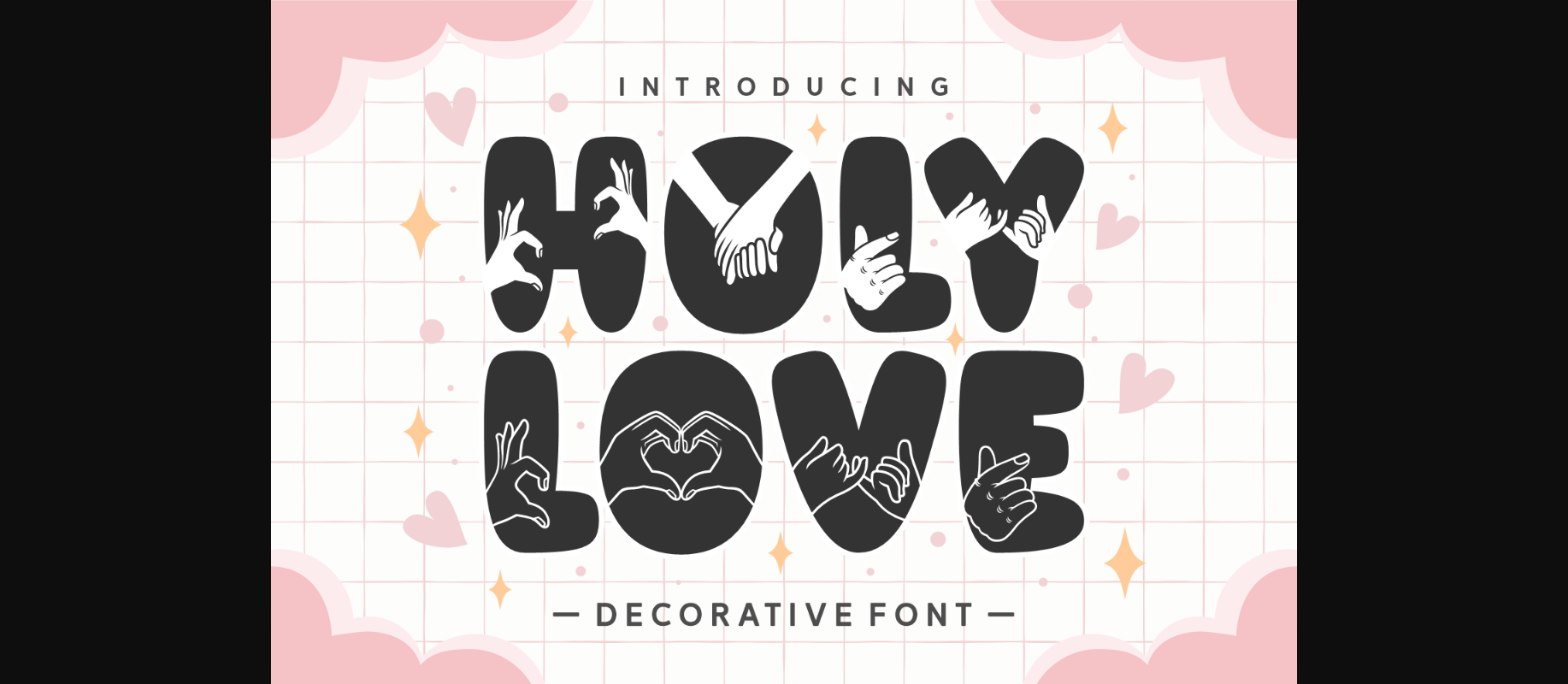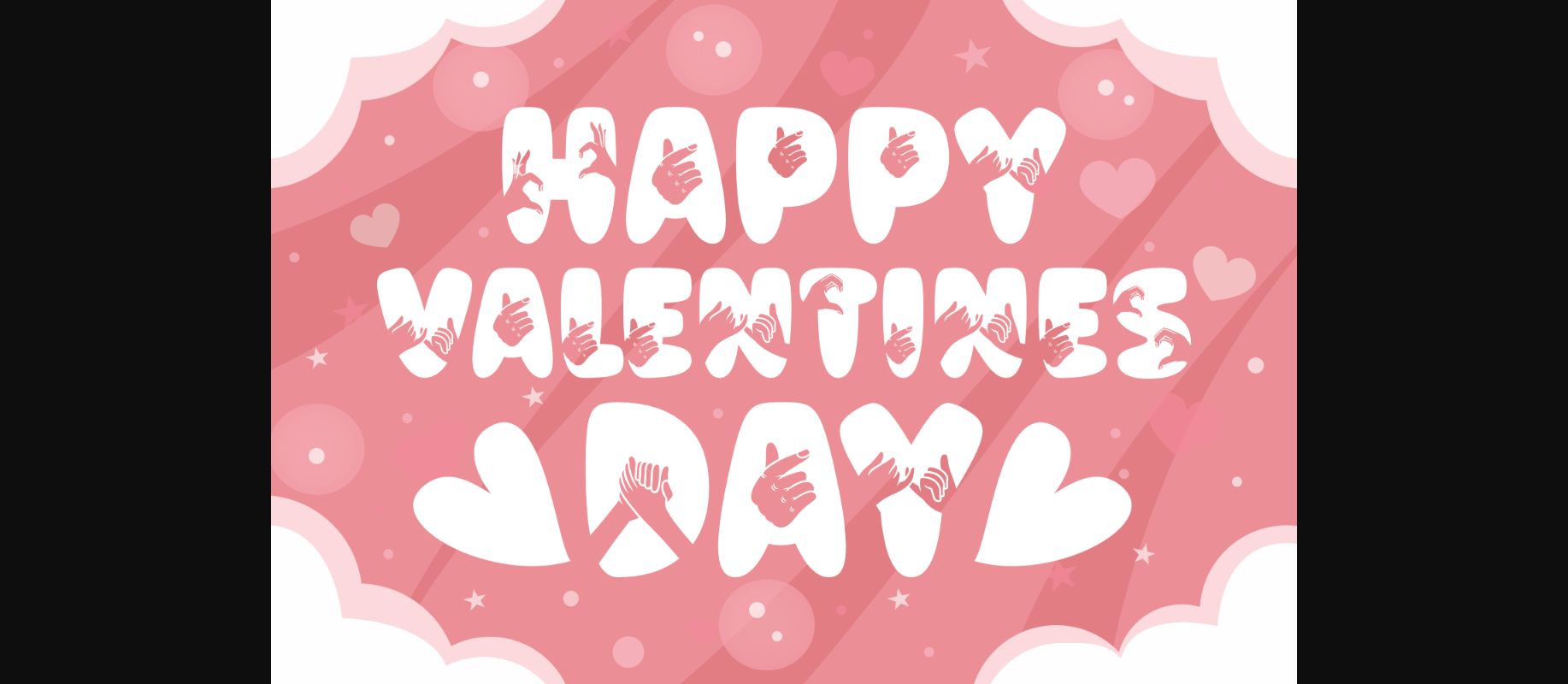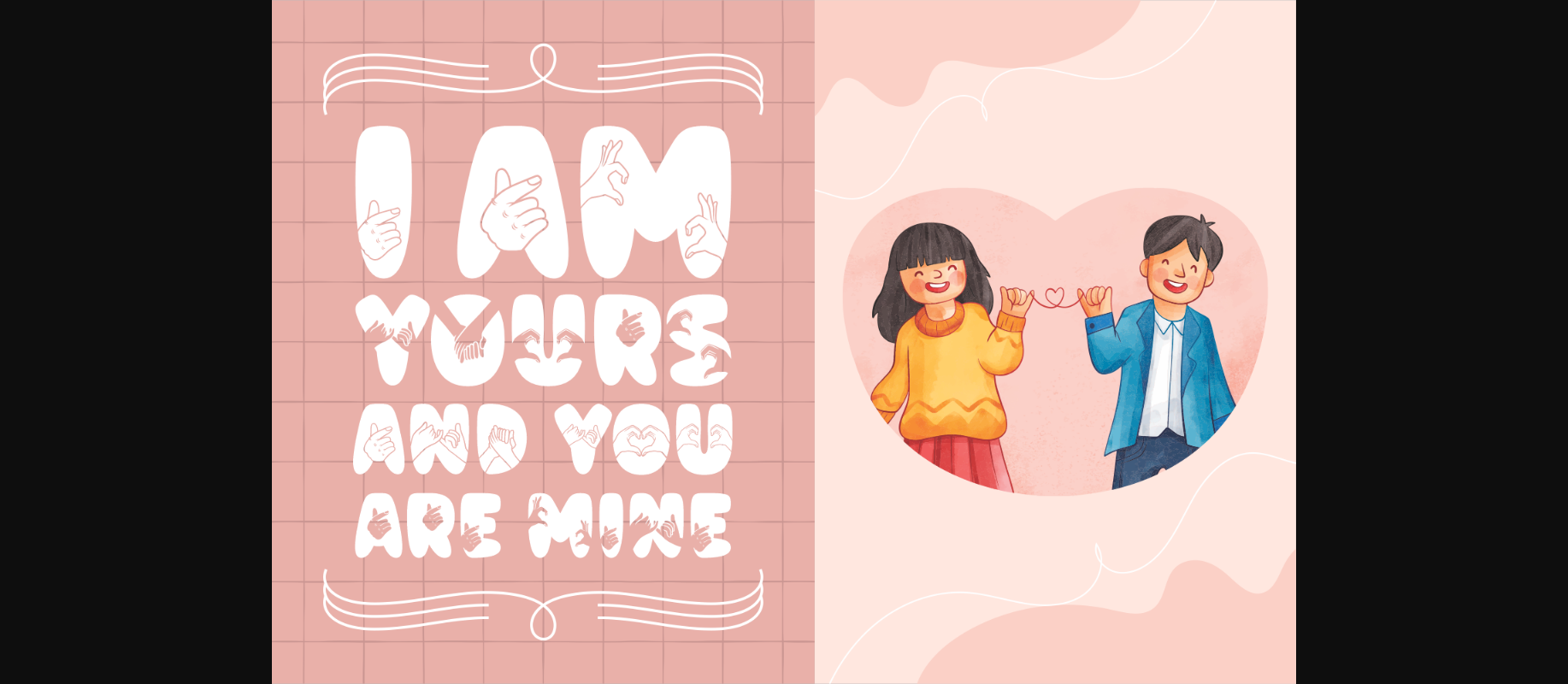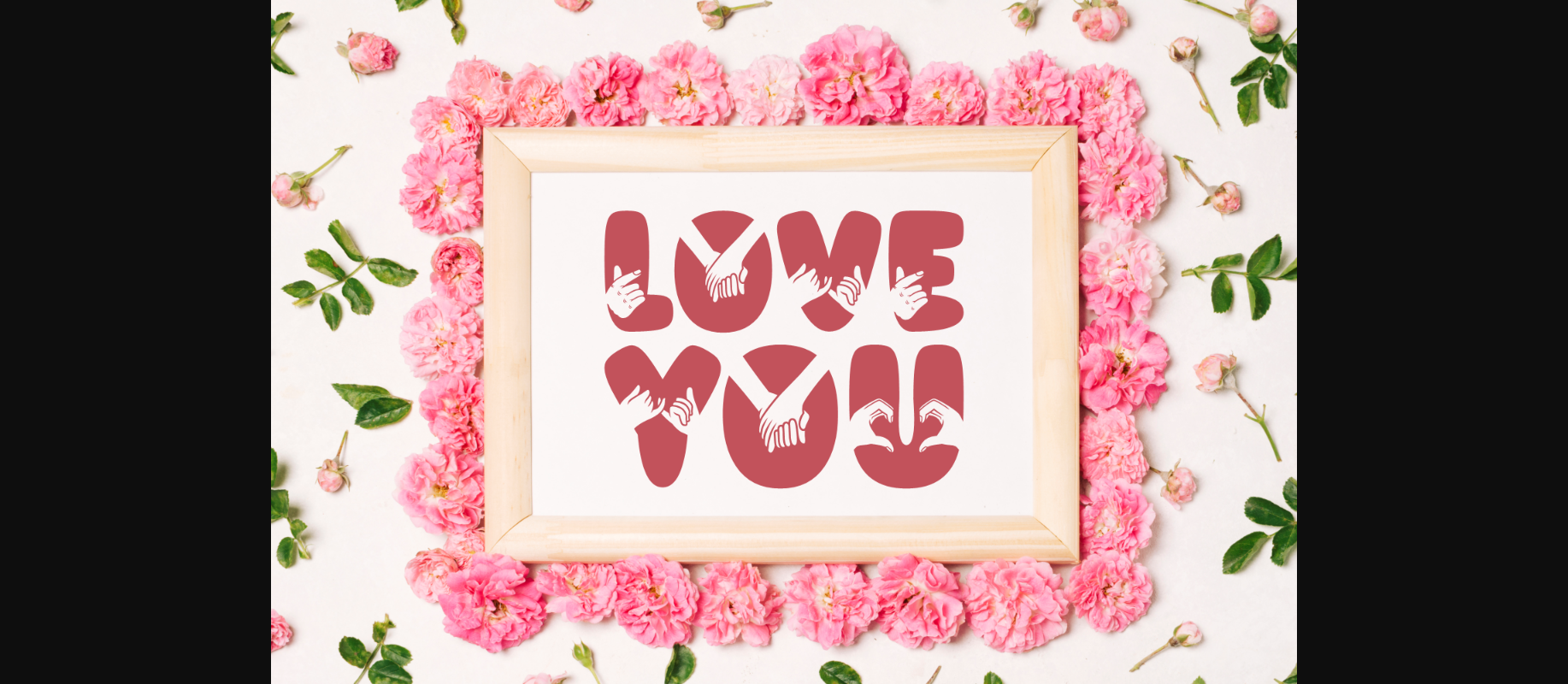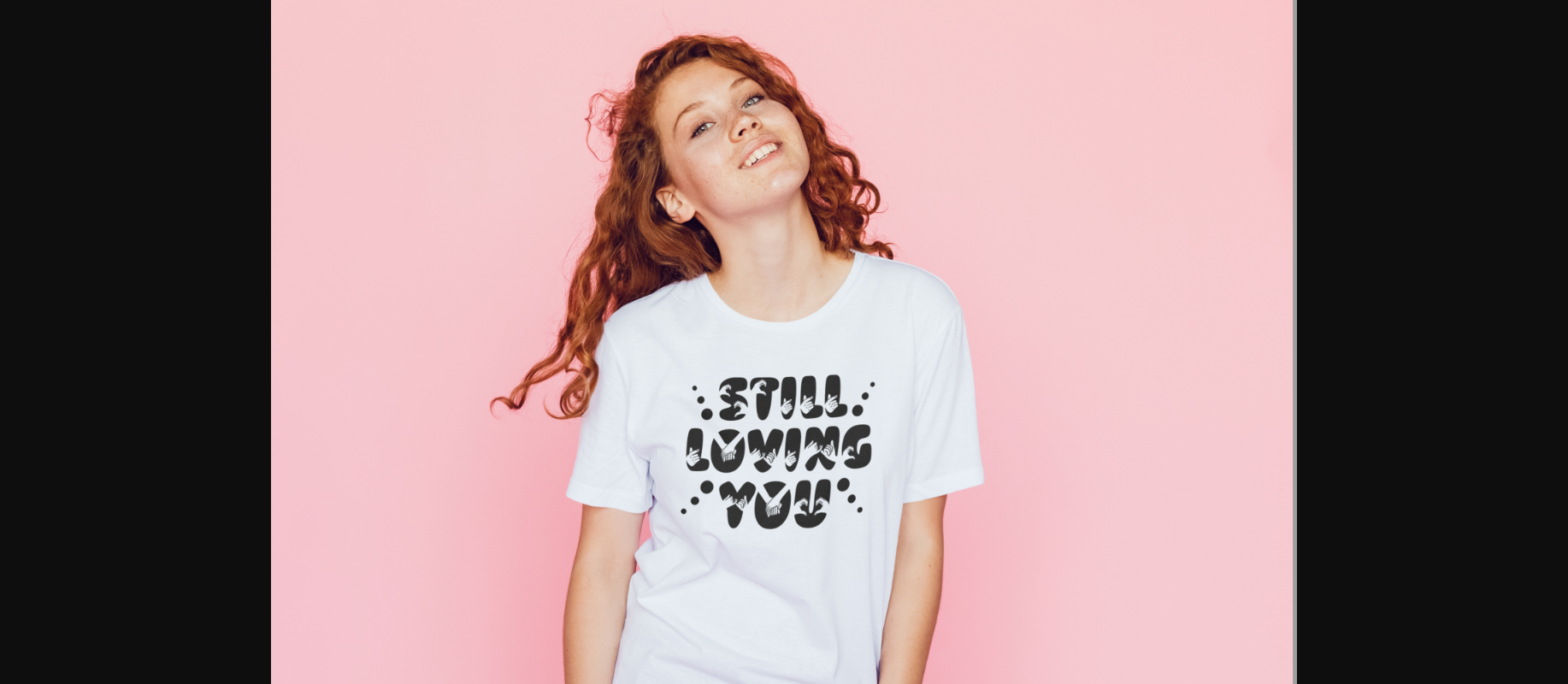
About Holy Love Font
Holy Love is a lovely and adorable decorative font, featuring engaging and friendly hand gestures. No matter the topic, this font will be an unforgettable asset to your fonts’ library, as it has the potential to bring a sense of cuteness to any creation.